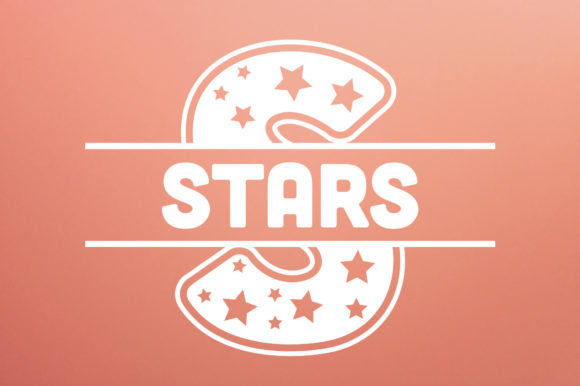
Dive into the realm of typography with Stars Monogram, a font family that radiates sheer brilliance and vibrancy. Its decorative nature makes it the perfect adornment for designs seeking a festive touch. The jolly and fun-loving spirit embedded within each character promises to transform your creations into joyous expressions of celebration.
Unleash your creativity and let Stars Monogram add a touch of magic to your works. From whimsical invitations to radiant social media posts, this font family will elevate your designs to new heights. Its enchanting aura is sure to captivate audiences, leaving a trail of smiles in its wake.
Indulge in the versatility of Stars Monogram, as it seamlessly adapts to a myriad of projects. Let your imagination soar as you craft enchanting logos, eye-catching posters, or personalized greeting cards. The possibilities are endless with this font family that knows no bounds.
Embark on a typographic adventure with Stars Monogram, the font family that ignites the imagination. Its playful and jubilant nature is a breath of fresh air, transporting you to a world where design dreams come true. Embrace the celebratory spirit and let your creations shine with infectious joy and exuberance.